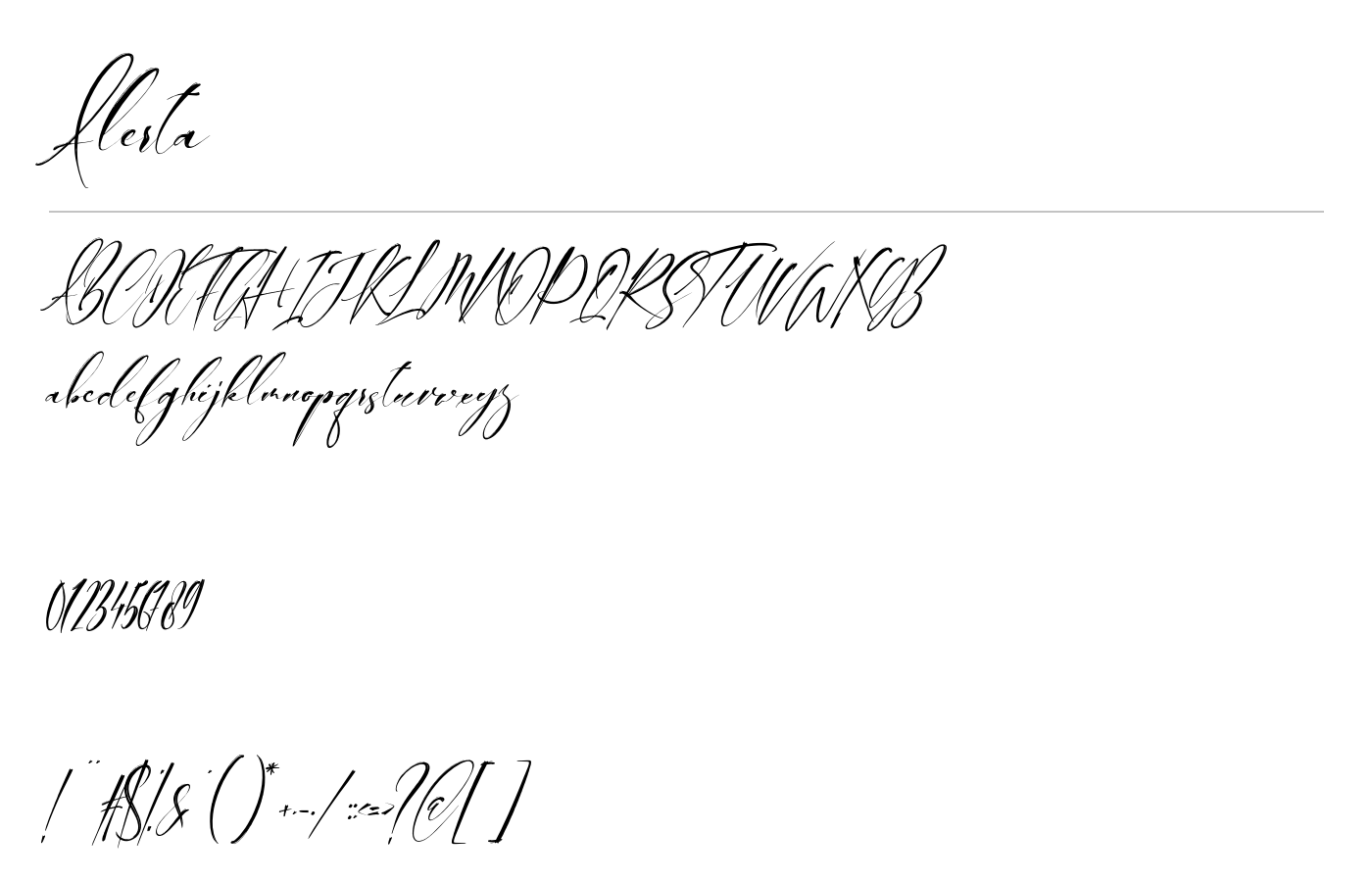
Alerta is an elegant, thin script font featuring delicate, flowing strokes that evoke a sense of sophistication and grace. Its high contrast and slender letterforms with a natural handwritten feel make it perfect for luxury branding, invitations, and fashion-related design where a refined and artistic touch is desired. This font excels in creating a stylish, personal atmosphere that adds charm and sophistication to logos, editorial headlines, and premium packaging.
Alerta Font
About Alerta Font